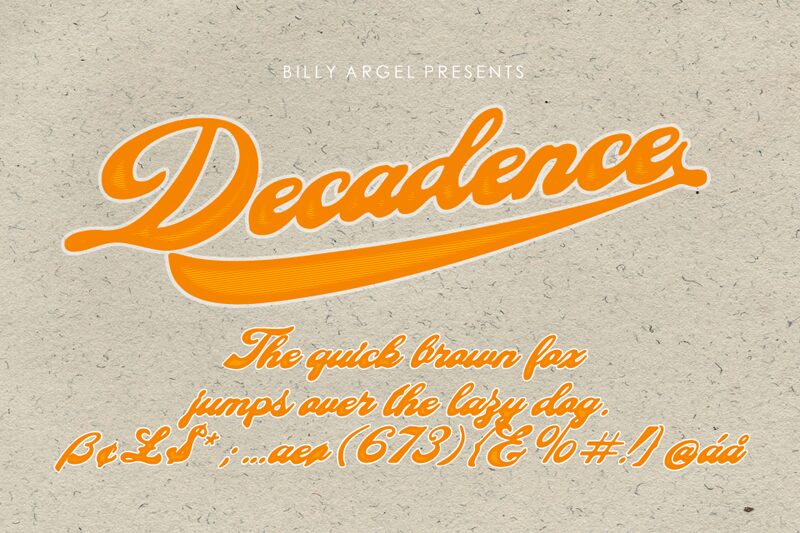
Decadence Personal Use Regular
Decadence, the semi-bold eroded script font by Billy Argel Fonts, is a perfect choice for a variety of projects that require an edgy and unique look. Whether you're designing a vintage-inspired poster, creating a logo for your rock band or branding your tattoo parlor, Decadence is the perfect tool to capture your audience's attention. Its rough edges and bold strokes make it stand out from the crowd and give your project an unmistakable character. With Decadence at your fingertips, you can add a touch of rebelliousness and individuality to any design.
Three layered fonts fonts!
PUA encoded, Stylistics alternates and 10 different swashes, for activated type any number + underscore (1_)